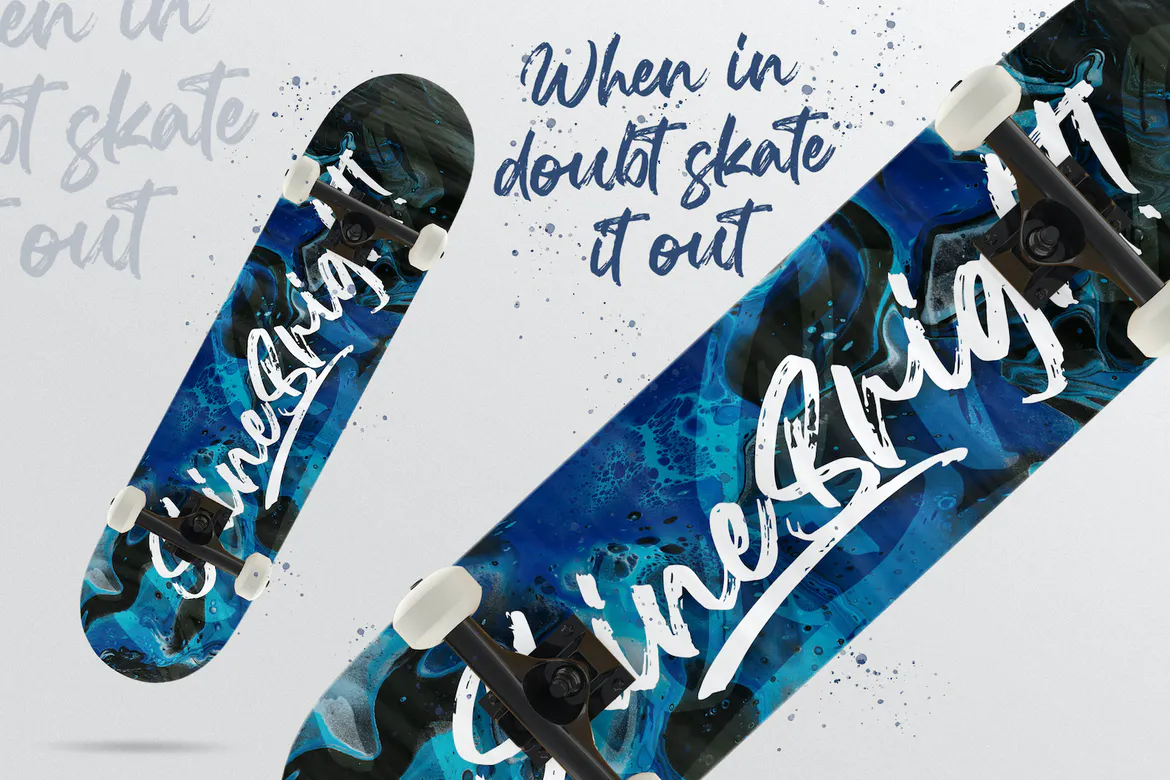
Agethsa – Textured Brush Font D58E2DF
Introducing Agethsa – Textured Brush Font
Agethsa is a textured handbrush font. Get inspired by its unique and beautiful style and add it to your favorite designs!
• Ligatures
• Alternates
• Uppercase and Lowercase letters
• Numbering and Punctuations
• Multilingual Support